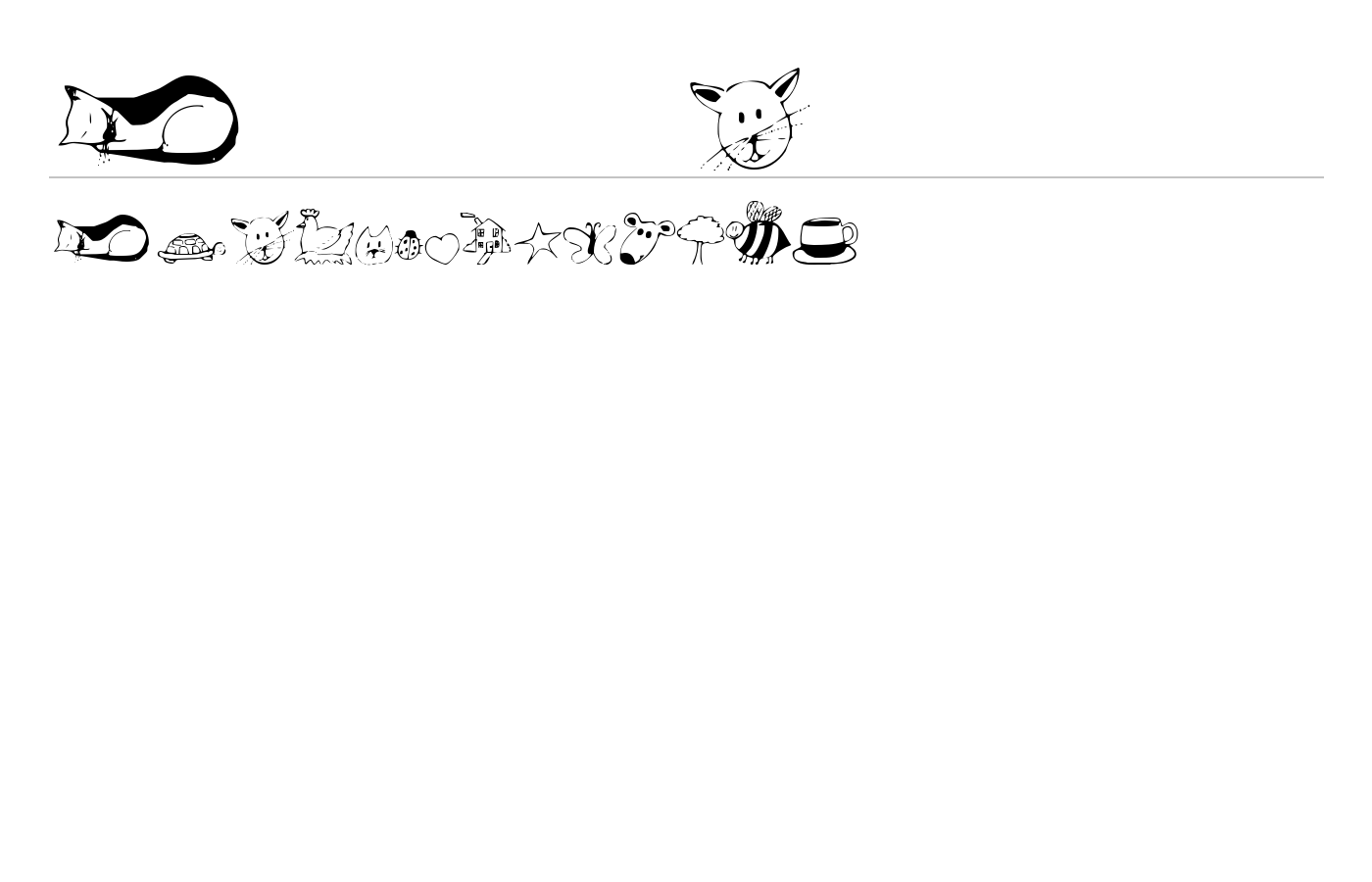
Andi's Critters Font is a playful and charming decorative font featuring whimsical animal and object illustrations instead of traditional letters. This font brings a fun, lighthearted feel perfect for children's projects, crafts, and playful branding. Its unique and friendly style makes it great for adding personality to invitations, posters, and casual designs where a creative and joyful touch is desired.
Andi's Critters Font
About Andi's Critters Font